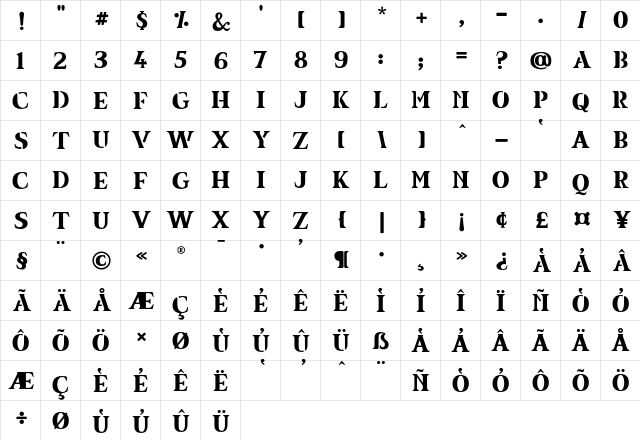
equil Regular
| Foundry | shaped fonts |
| Designer | Christoph Dorre |
Design Context for equil Typeface
equil is a composed and adaptable typeface that performs quietly and consistently across a wide range of design contexts.